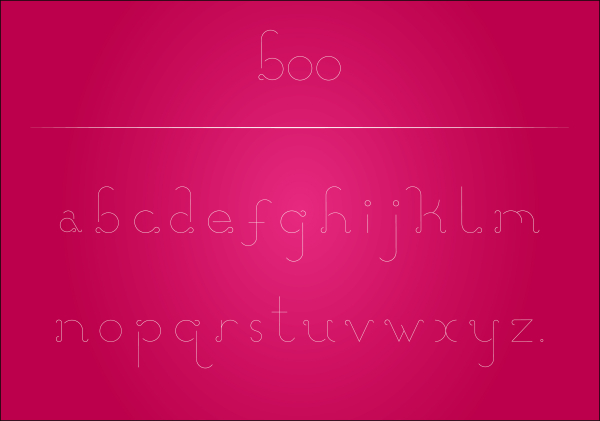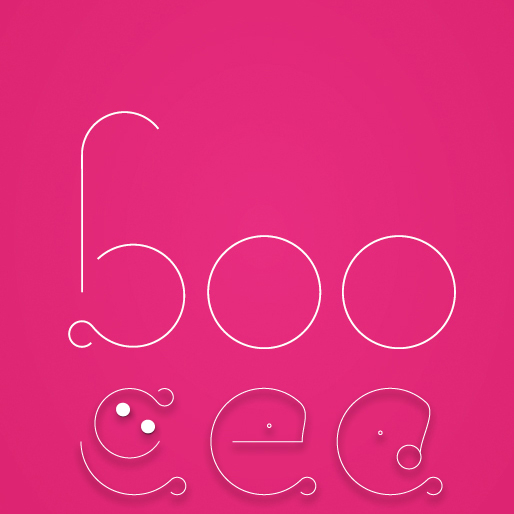
boo
She is CASUAL yet GEOMETRIC,
like the ripples by a flower.
INDIVIDUAL yet COMPLEMENTING,
like the pearls of a necklace or a twilight shower.
'boo' was born when I tried to put the words *cute, elegant and beautiful*.
With the sleek yet circular (curvy) character, she could represent a baby or an old wine, a jewellery brand or just a farmer's fruit stall, but she fits in very well with a nice, Italian cafe